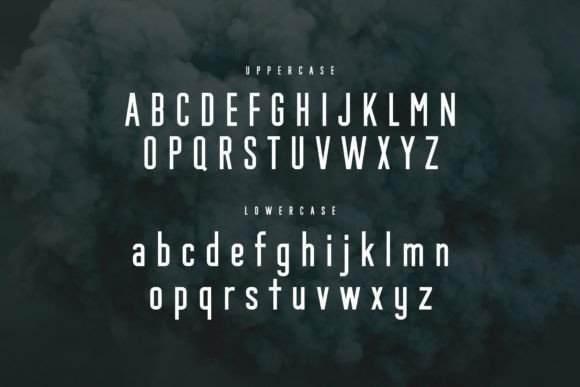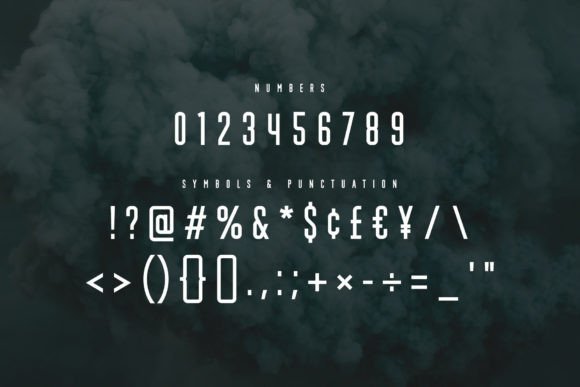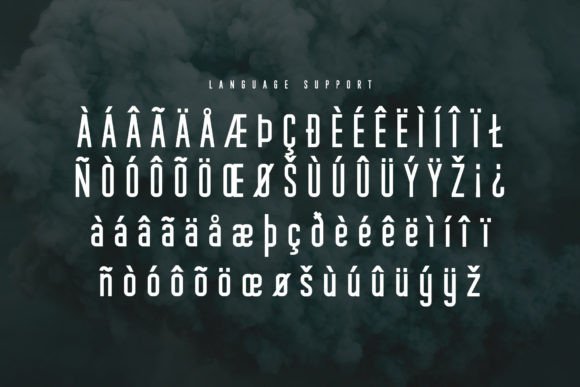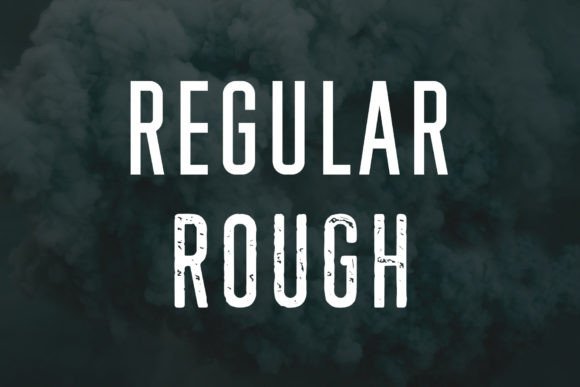
Introduction to Riot Font
Riot is a tall, condensed sans-serif typeface which takes inspiration from industrial signage.
It is uniform, easy to read and makes a strong statement Riot also has subtle rounded corners, to make it less harsh and imposing than many industrial fonts.
Key Features of Riot Font